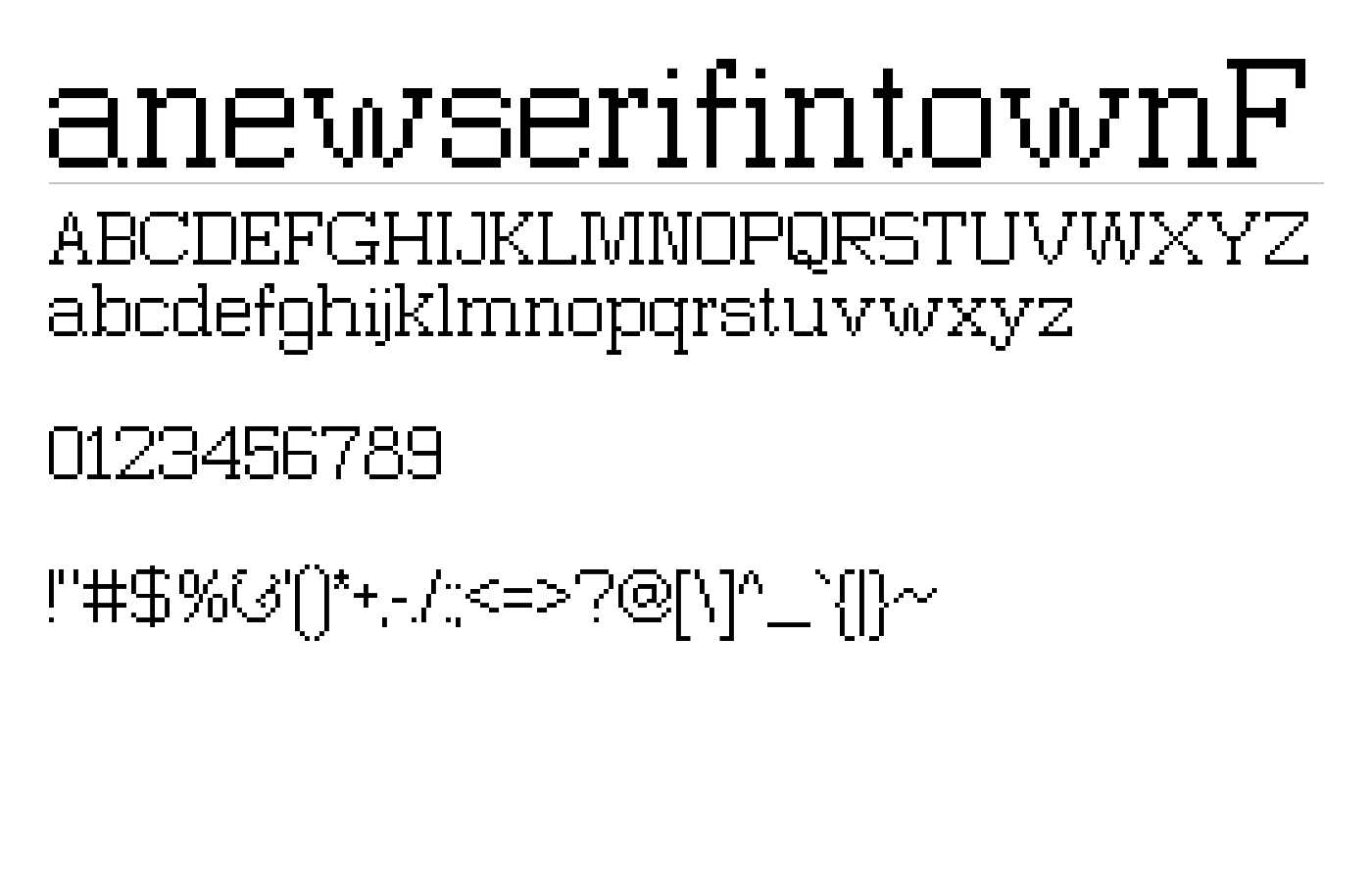
AnewserifintownF is a monospaced serif font with a clean, structured appearance and medium weight that emphasizes clarity and legibility. Its uniform stroke widths and pixelated, geometric forms give it a technical, retro feel suitable for coding, digital displays, or designs needing a vintage computer aesthetic. This font works well in contexts like coding environments, tech-inspired posters, or editorial designs where a nostalgic yet precise look is desired.